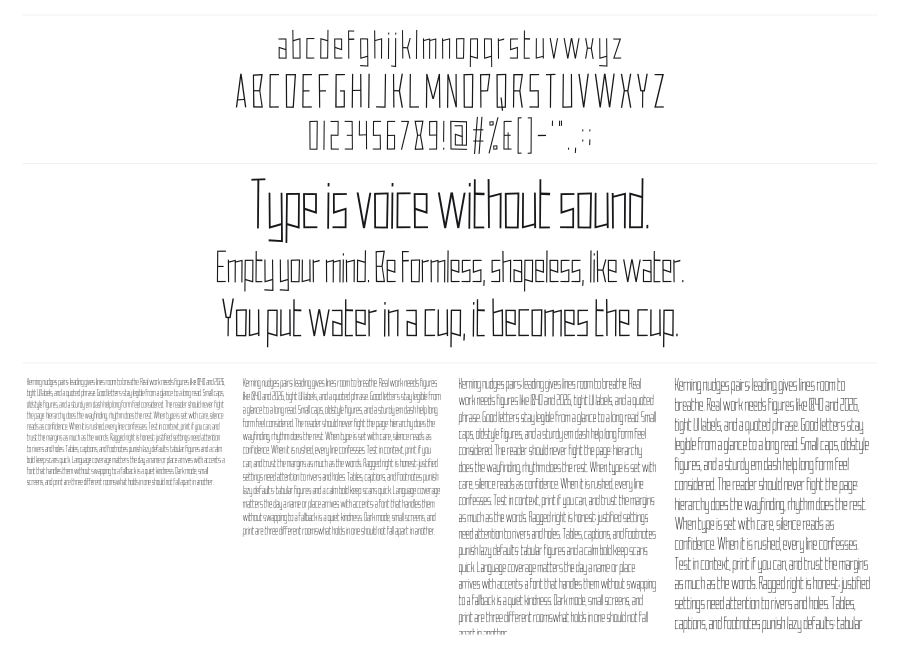
Nonchalant Love
Nonchalant Love is an ultra-condensed, featherweight sans-serif with a deliberately loose, hand-assembled personality. Its characters stretch tall and thin with flat angular terminals and subtle irregularities that give it a relaxed, almost doodled character. It works well for editorial headlines, indie game titles, and any context that wants personality without shouting.